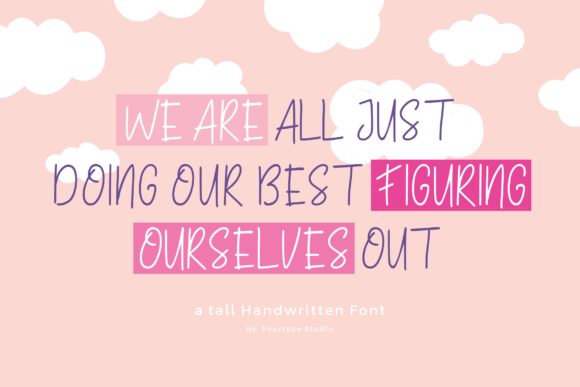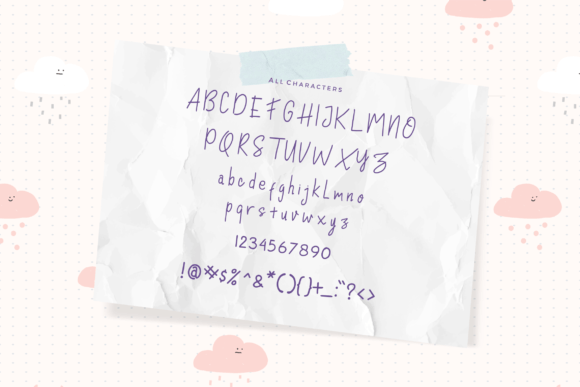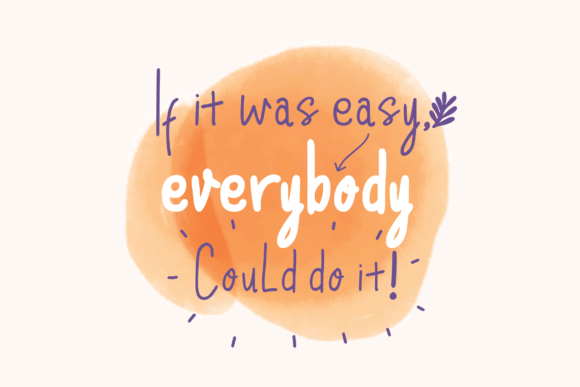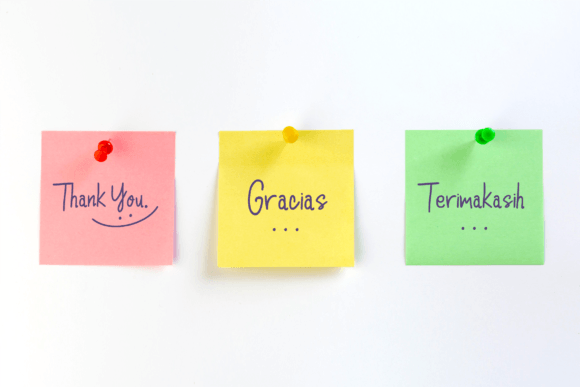
Discover the Charm of Daydreaming Font: A Quirky and Friendly Handwritten Delight
Are you on the hunt for a font that exudes warmth, friendliness, and a dash of quirkiness? Look no further than Daydreaming Font, a delightful handwritten typeface that’s sure to capture your heart. This charming font is perfect for designers and crafters seeking to add a personal touch to their projects. In this article, we’ll dive into the wonderful world of Daydreaming Font, exploring its features, uses, and the magic it can bring to your designs.
A Little Bit Quirky, A Lot of Charm
Daydreaming Font is a beautifully crafted handwritten font that’s a little bit quirky, making it incredibly versatile and adaptable to a wide range of contexts. Its unique character lies in its subtle imperfections and gentle curves, which give it a distinctly human feel. This font is perfect for adding a touch of personality to your designs, whether you’re working on a project for a client or creating something for your own brand.
What Makes Daydreaming Font So Special?
- Handwritten with love: Daydreaming Font is carefully crafted to mimic the natural flow of handwritten writing. Each letter is uniquely designed to convey a sense of warmth and friendliness.
- Quirky and playful: This font’s quirky nature makes it perfect for designs that require a bit of whimsy and fun. It’s sure to add a smile to your audience’s faces!
- Highly versatile: Daydreaming Font can be used in a variety of contexts, from digital projects to print materials, and from branding to packaging.
- Easy to read: Despite its quirky nature, Daydreaming Font remains highly legible, making it perfect for body text and longer blocks of content.
Daydreaming Font is a dream come true for designers and crafters looking to add a personal touch to their projects. Whether you’re creating:
- Branding materials: Use Daydreaming Font to create custom logos, business cards, and letterheads that showcase your brand’s personality.
- Digital products: Add a touch of warmth and friendliness to your ebooks, printables, and social media graphics.
- Paper crafts: Use Daydreaming Font to create custom cards, invitations, and journal pages that are sure to delight.
- Web design: Incorporate Daydreaming Font into your website design to create a unique and memorable user experience.
Tips for Using Daydreaming Font
To get the most out of Daydreaming Font, here are a few tips to keep in mind:
- Mix and match: Combine Daydreaming Font with other fonts to create a unique visual hierarchy and add depth to your designs.
- Play with colors: Experiment with different colors and textures to enhance the font’s quirky nature and add visual interest.
- Use it sparingly: While Daydreaming Font is incredibly versatile, it’s best used in moderation. Use it to highlight key messages or add emphasis to your designs.
Daydreaming Font is a delightful handwritten font that’s sure to capture your heart. Its quirky nature, combined with its warmth and friendliness, make it the perfect addition to any design project. Whether you’re a designer, crafter, or simply someone looking to add a personal touch to your creations, Daydreaming Font is a must-have in your font collection. So why not give it a try and see the magic it can bring to your designs?